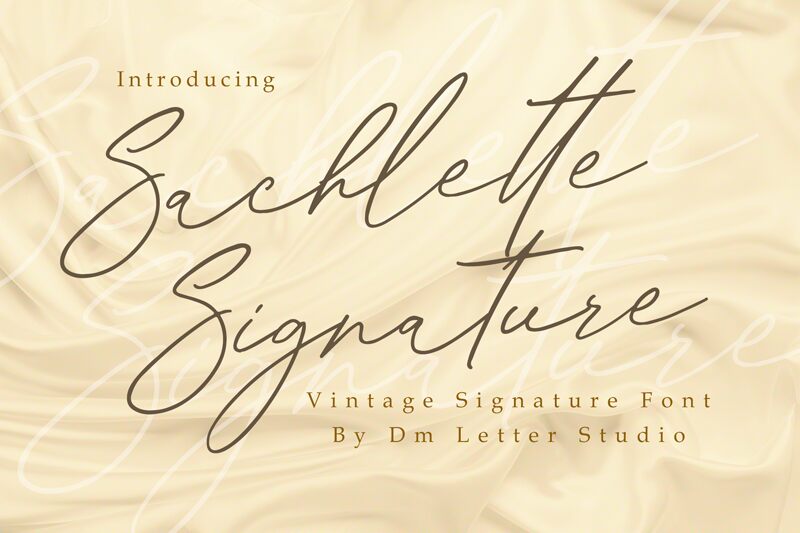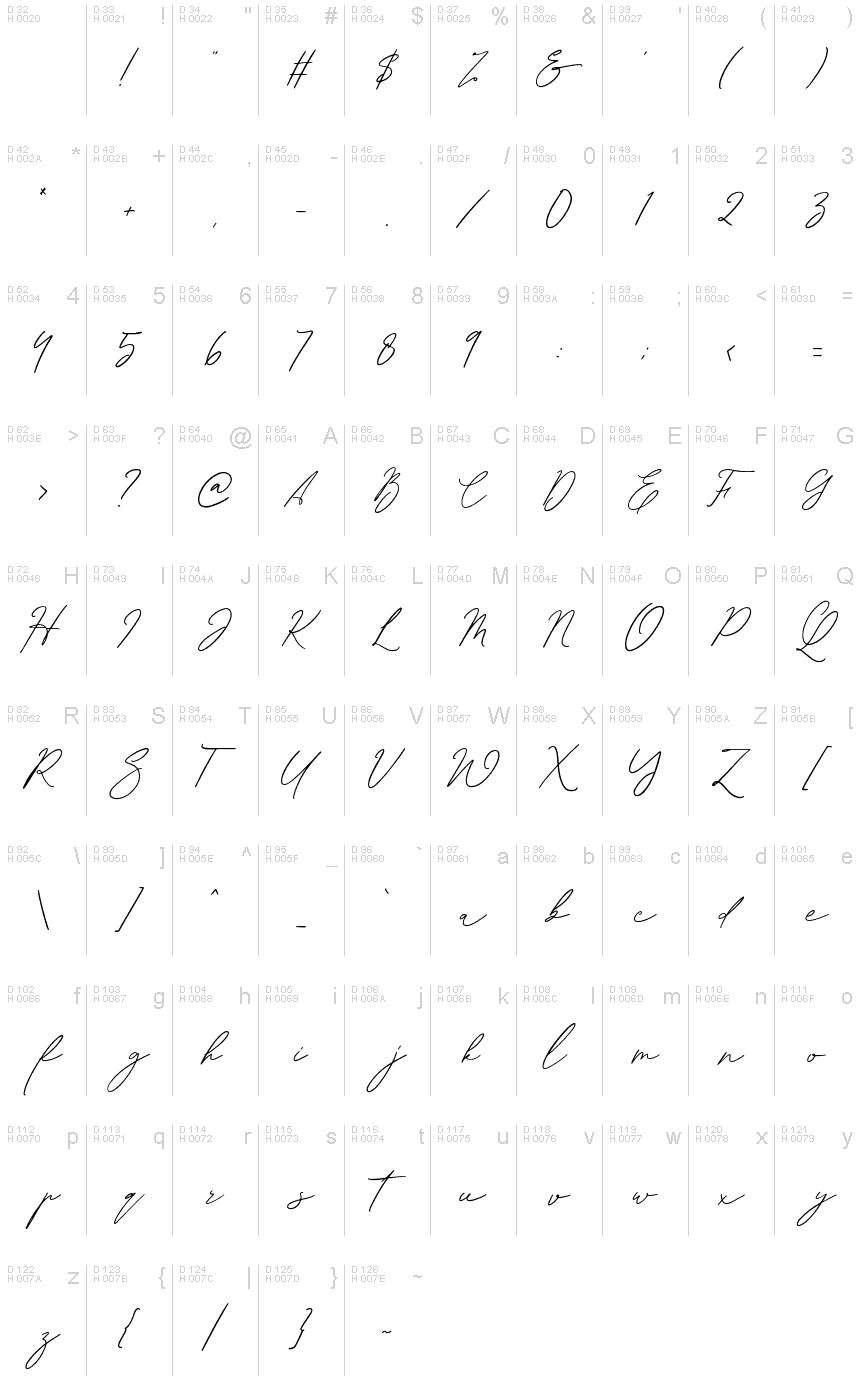
This enchanting font will turn any creative idea into a true standout.
Perfect fit for all of your logos, branding, social media, etc.
Get creative with its unique playfulness, and use it to brighten up any crafting project!
Sachlette Signature
This font was created By DM Letter Studio ( Dimas & Yuniar ) From Bandung - Indonesia .